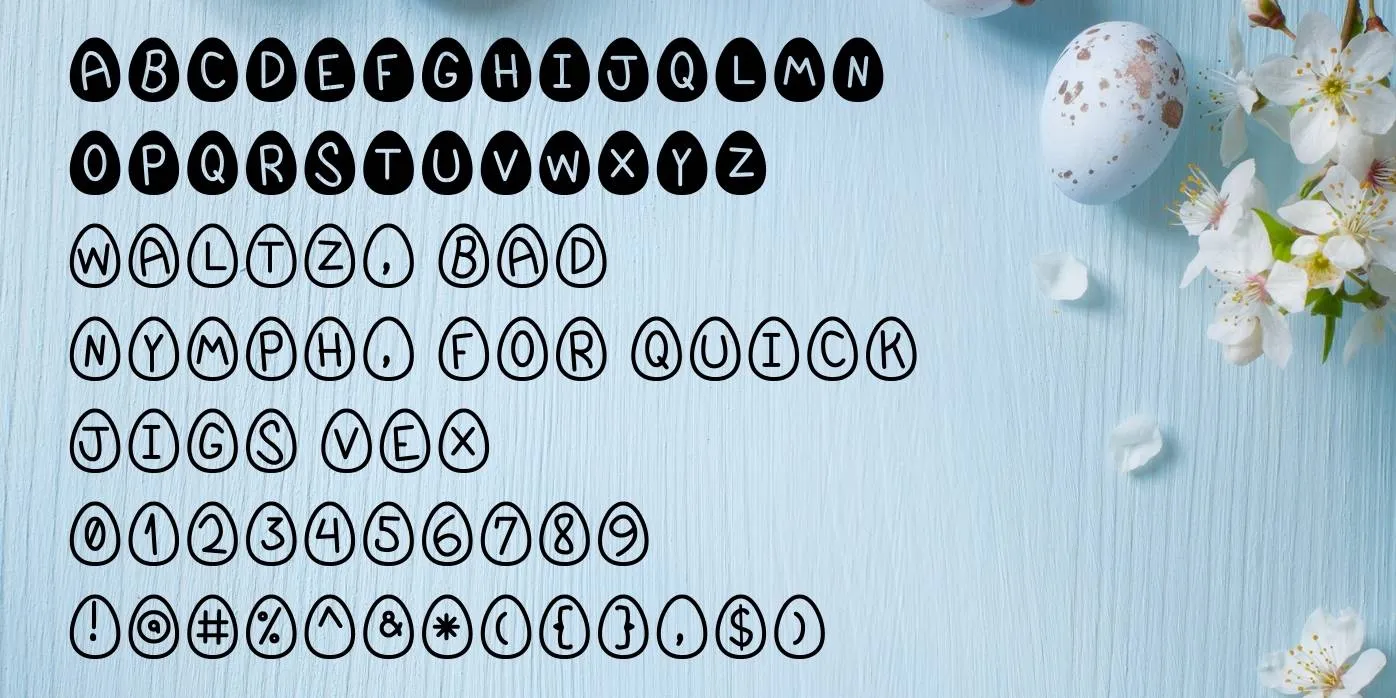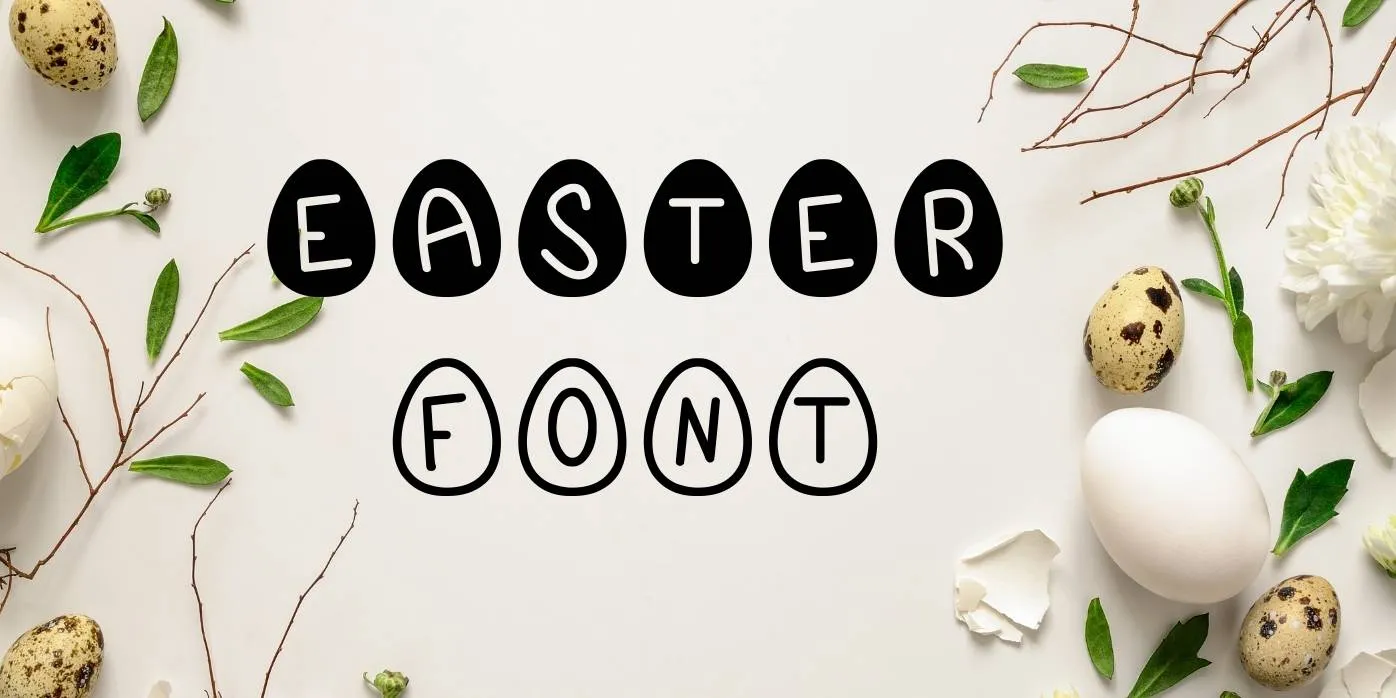
Easter Font
Lets we are introducing a tremendous and fascinating font family known as Easter Font. This amazing font belongs to the Sans-Serif font family. This modern and unique font was designed by well-known designer Southype. This stunning font comes in different 9 styles.
Some of its common styles are Bold, Light,  Medium, and  Extra Bold. Because of its pairing function, this font family is most popular and unique everywhere. By using this font with the pairing of another famous Panton Font you can easily use it for different posters and many attractive websites header. It will provide a stylish look and flawless results.